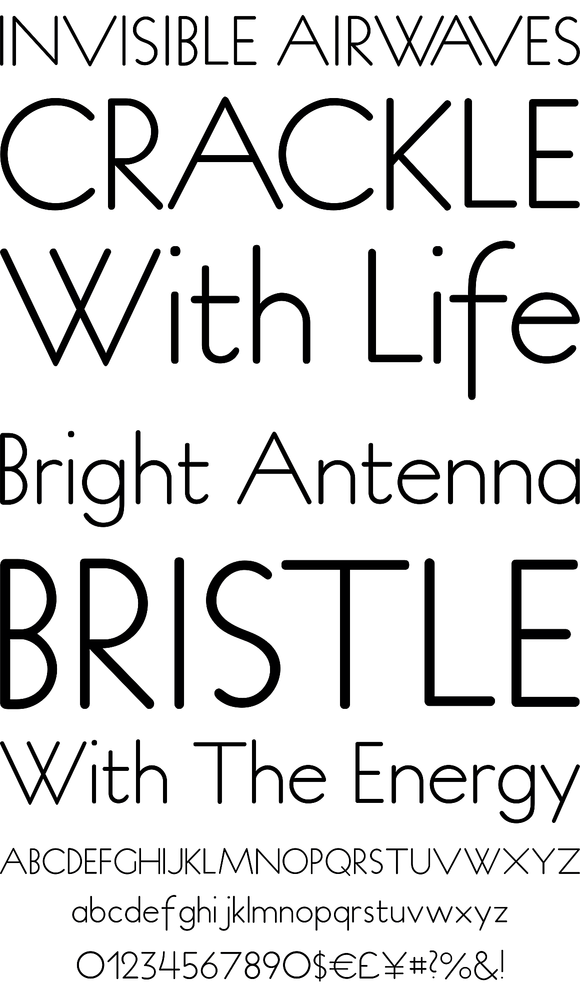
P22 Platten Neu
Foundry: IHOF
The P22 Platten font family has been revisited and expanded by designer Colin
Kahn. Platten is based on lettering found in German fountain pen practice books
from the 1920s (you may have seen the similar Speedball books in the US). This
round tip pen lettering is comparable to the basic forms used in grammar school
teaching alphabets, but with a few original characteristics. The Italic version
has even more of these unusual features. Geometric & simple yet casual & timeless.
Perfect for many uses.
P22 Platten Neu includes 6 Pro fonts (Light, Regular & Demibold) with many alternates and ligatures (over 500 glyphs in each font) in Roman & Italic with expanded Central European language coverage and Smallcaps (Roman only).